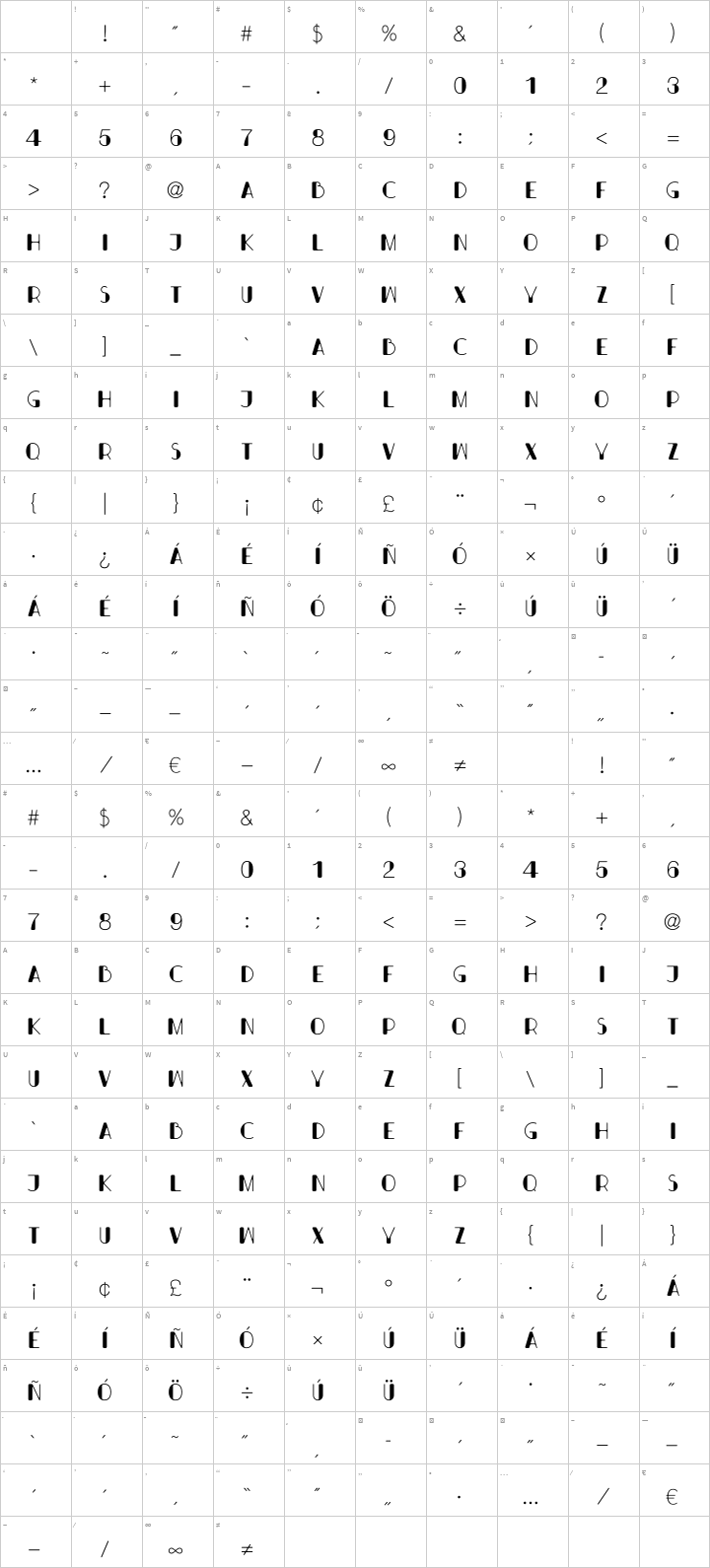
![]() Bondi Regular | 153 Glyphs |
Bondi is a display font designed by Alejo Bergmann. It contains all caps letters, numerals and symbols. This font perfectly suites for variety display purposes, including logotypes, badges and labels, headlines and banners, prints and much more.
Designed by: | Alejo Bergmann | |
Classification: | Display | |